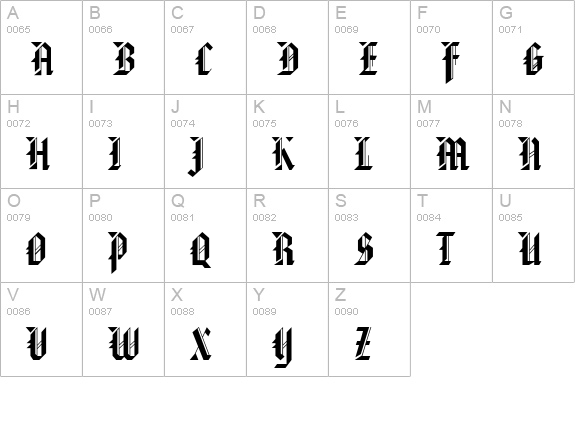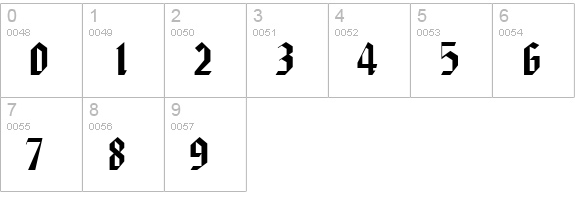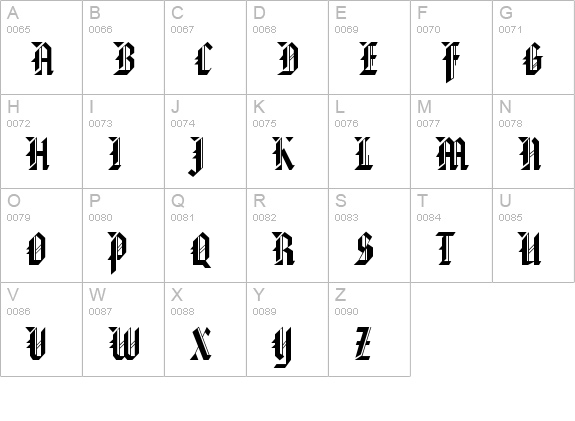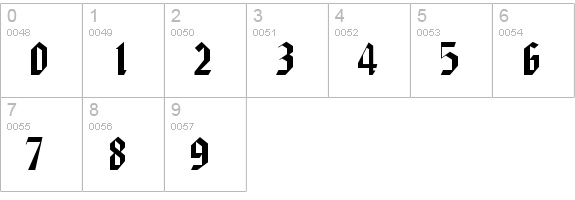
American Text Font Details
The American Text font is a beautiful and versatile typeface that encapsulates the spirit of America. With its clean lines and classic design, this font is perfect for any project that requires a touch of sophistication and elegance. Whether you're designing a logo, creating a website, or working on a print advertisement, American Text will elevate your work to new heights. What sets American Text apart is not only its stunning aesthetics, but also the fact that it is completely free. That's right, you can download this amazing font for free at FontsMarket.com. We believe that great design should be accessible to everyone, and that's why we're offering American Text as a freely available font. With its wide range of weights and styles, American Text can adapt to any design need. Whether you're looking for a bold and impactful headline or a subtle and refined body text, this font has got you covered. Its versatility makes it a go-to choice for designers and creatives alike. The attention to detail in American Text is truly remarkable. Each letter has been meticulously crafted to ensure legibility and visual appeal. The clean and crisp lines make this font easy to read, even at smaller sizes. Additionally, the elegant curves and graceful strokes add a touch of sophistication to any design. Another great feature of American Text is its compatibility with various software and devices. Whether you're using it in Adobe Creative Suite, Microsoft Office, or any other design program, this font will seamlessly integrate into your workflow. In conclusion, American Text is not only a visually stunning font, but it's also a font that is freely available for download at FontsMarket.com. Its versatility, attention to detail, and compatibility make it an excellent choice for any design project. So why wait? Download American Text now and elevate your designs to a whole new level of excellence.